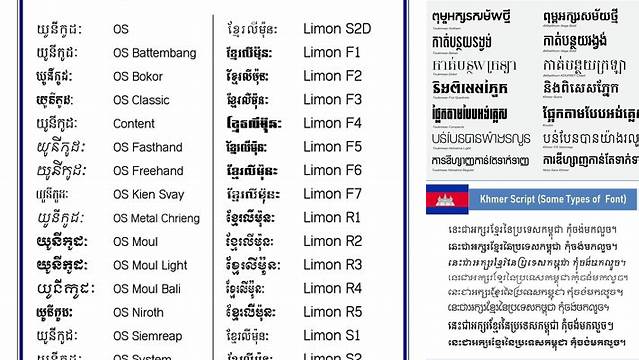
Khmer Fonts: A Comprehensive Guide
1. Introduction to Khmer Fonts
Hey guys! Let's dive into the fascinating world of Khmer fonts. You know, those beautiful scripts that bring the Cambodian language to life on our screens and in print? Understanding Khmer fonts is crucial for anyone working with Cambodian text, whether you're designing a website, creating documents, or simply wanting to read Khmer script online. Khmer, also known as Cambodian, is the official language of Cambodia and is spoken by over 16 million people. The Khmer script, an abugida (a writing system where consonant-vowel relationships are indicated through diacritics or modifications of the consonant letters), has a rich history and unique aesthetic. When we talk about Khmer fonts, we're referring to the digital representations of this script, each with its own distinct style and characteristics. Choosing the right font can significantly impact the readability and visual appeal of your text. A well-designed Khmer font not only looks good but also ensures that the text is clear and easy to read for native speakers. This introduction will lay the groundwork for understanding the importance of Khmer fonts and their diverse applications. Think of Khmer fonts as the voice of the Khmer language in the digital world. Each font has its own personality, from formal and traditional to modern and playful. Just as you would choose the right tone of voice for a conversation, selecting the appropriate Khmer font is essential for conveying your message effectively. Whether you are creating a professional document, designing a website, or crafting a social media post, the font you choose will influence how your message is received. So, let's explore the amazing world of Khmer fonts and discover how to make the best choices for your needs.
2. History and Evolution of Khmer Script
The history of the Khmer script is a journey through time, reflecting the cultural and linguistic evolution of Cambodia. The Khmer script evolved from the Pallava script, a southern Indian script, around the 7th century AD. This ancient script was initially used for inscriptions on stone and copper plates, primarily for religious and royal decrees. Over centuries, the Khmer fonts have undergone significant transformations, adapting to different writing styles and technological advancements. The earliest Khmer fonts were characterized by their ornate and intricate designs, reflecting the influence of Indian calligraphy. As the script evolved, it gradually developed its own distinct characteristics, becoming more rounded and flowing. The Khmer script is unique in its structure and appearance, with a complex system of consonants, vowels, and diacritics. Understanding the historical context of the script helps us appreciate the nuances of modern Khmer fonts. During the Angkor period (9th-15th centuries), the Khmer script flourished, with numerous inscriptions and manuscripts produced. This period saw the development of various styles of Khmer fonts, each reflecting the artistic and cultural trends of the time. The script was used not only for religious texts but also for secular literature and administrative documents. The evolution of Khmer fonts has been influenced by various factors, including changes in writing materials, printing technologies, and artistic preferences. In the modern era, the advent of digital technology has brought about a new era for Khmer fonts, with a wide range of fonts available for use in computers and other devices. Today, we have access to a diverse collection of Khmer fonts, each with its own unique style and historical roots. From traditional serifs to modern sans-serifs, the options are vast and varied. This rich history adds depth and meaning to the Khmer fonts we use today, connecting us to the past while enabling us to communicate in the present.
3. Types of Khmer Fonts: Serif, Sans-Serif, and Script
Just like in English, there are different types of Khmer fonts, each with its own style and best uses. Khmer fonts, much like their Latin counterparts, can be broadly categorized into serif, sans-serif, and script fonts. Each type has its own distinct characteristics and is suitable for different purposes. Serif fonts, characterized by the small decorative strokes (serifs) at the end of the letters, often convey a sense of tradition, formality, and elegance. Think of them as the classic choice for formal documents and publications. Sans-serif fonts, on the other hand, lack these serifs and have a cleaner, more modern appearance. They are often preferred for digital screens and contemporary designs. Script fonts mimic handwriting and are perfect for adding a personal or artistic touch. Understanding these categories will help you choose the right Khmer font for your specific needs. Serif Khmer fonts are often used in printed materials, such as books and newspapers, where readability is paramount. The serifs help guide the reader's eye along the text, making it easier to follow. Sans-serif Khmer fonts are a popular choice for websites and mobile apps, where clarity on screens is essential. Their clean lines and simple shapes make them easy to read even at small sizes. Script Khmer fonts are often used for invitations, greeting cards, and other decorative purposes. They can add a touch of elegance and personality to your designs. When selecting a Khmer font, consider the context in which it will be used. A serif font might be perfect for a formal report, while a sans-serif font might be better suited for a website. A script font could add a unique flair to a special occasion invitation. The key is to choose a font that not only looks good but also enhances the readability and overall impact of your message. By understanding the different types of Khmer fonts, you can make informed choices and create visually appealing and effective designs.
4. Popular Khmer Font Styles and Their Uses
There's a whole world of Khmer fonts out there, each with its own personality! Some popular Khmer fonts include Limon, Mondulkiri, and NiDA Khmer, among many others. Each font style has its unique characteristics and is suitable for different applications. Limon, for example, is a widely used font known for its clean and modern design, making it ideal for both body text and headings. Mondulkiri is a more traditional font, often used for formal documents and publications. NiDA Khmer is a popular choice for digital media, offering excellent readability on screens. Understanding the nuances of these different font styles can help you make informed decisions when choosing a Khmer font for your project. Think of Khmer fonts as having their own voices. Some are bold and assertive, while others are subtle and elegant. The font you choose should reflect the tone and style of your message. For instance, if you're designing a website for a modern tech company, a clean and sans-serif Khmer font like NiDA Khmer might be the perfect fit. On the other hand, if you're creating a traditional wedding invitation, a more ornate and serif Khmer font like Mondulkiri could be a better choice. Exploring different Khmer font styles is like getting to know different personalities. Each font has its own unique quirks and strengths. By experimenting with various fonts, you can discover the perfect match for your project. Whether you're creating a poster, a brochure, or a website, the right Khmer font can make all the difference in conveying your message effectively and beautifully.